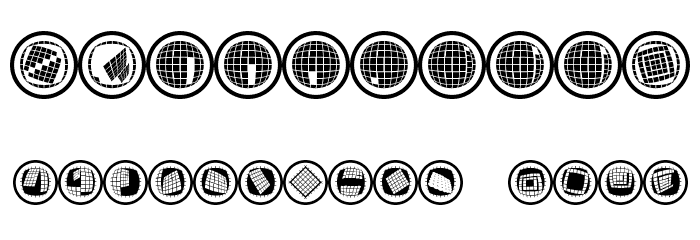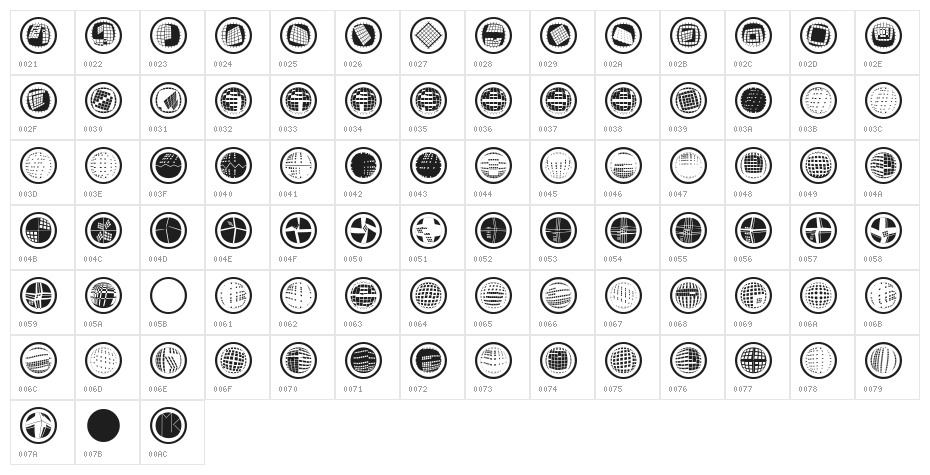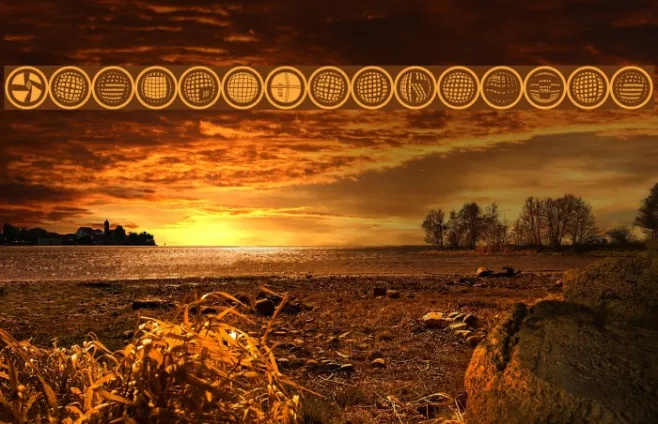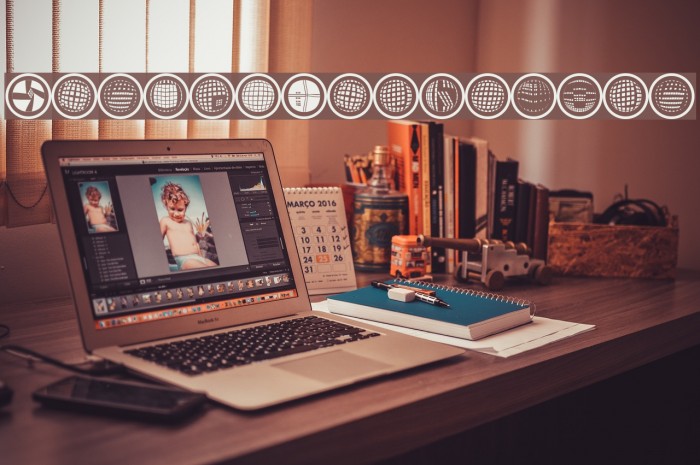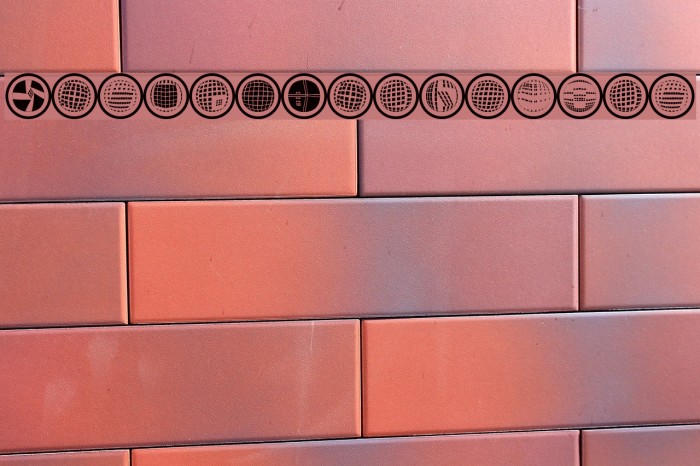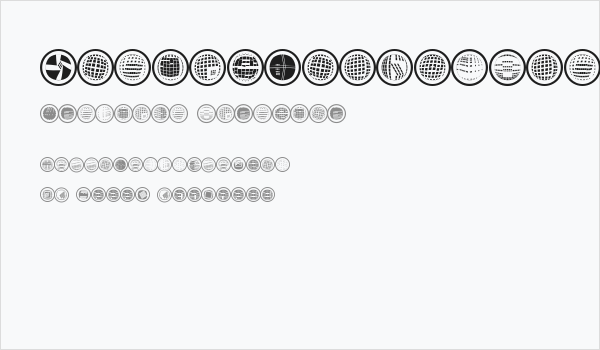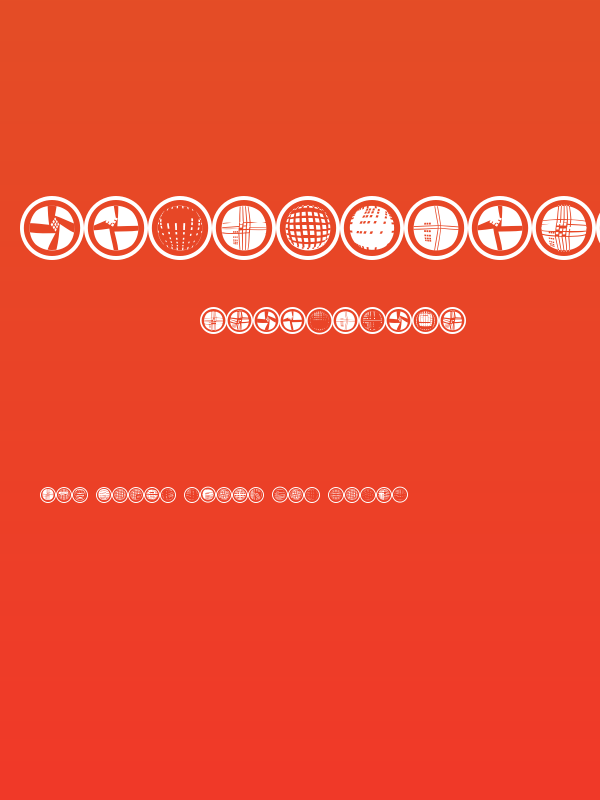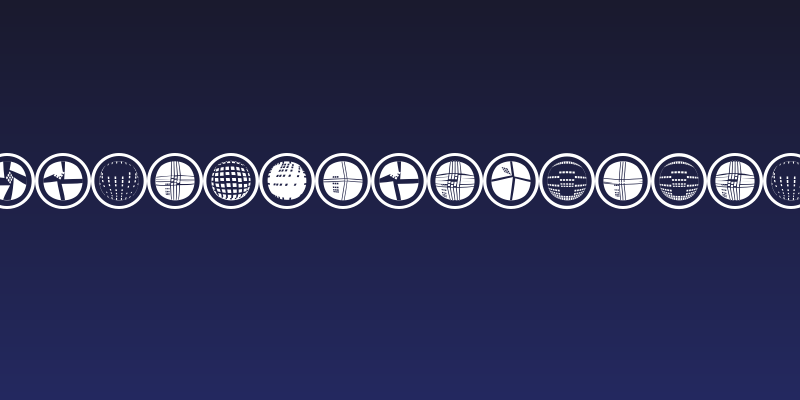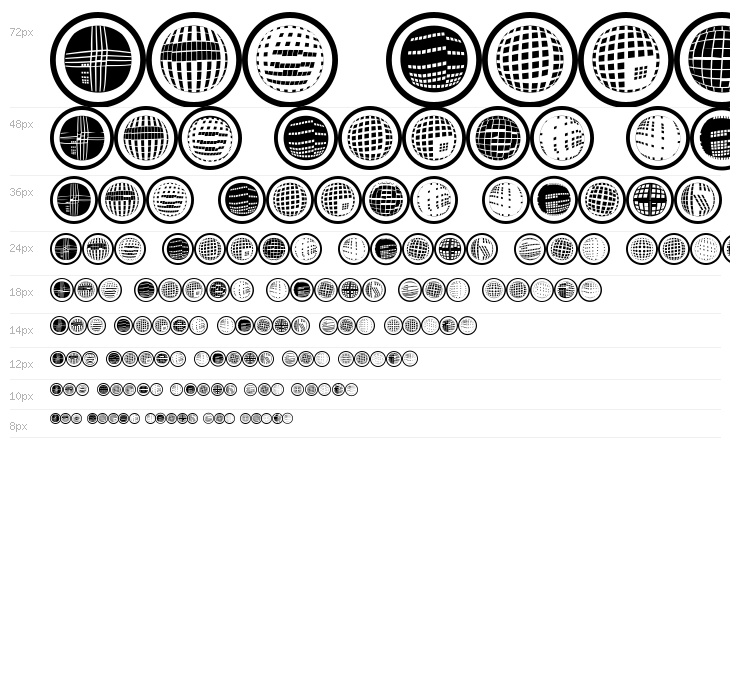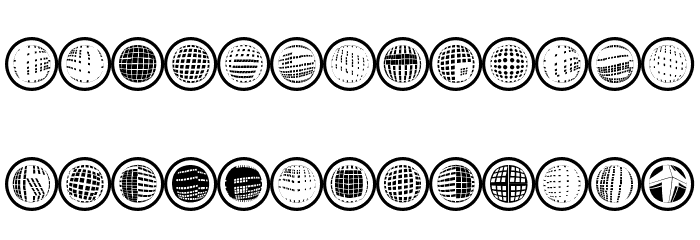
PoeticRoundsDue Font
PoeticRoundsDue Description
A highly decorative and abstract display typeface where each character is represented by a unique circular grid or geometric pattern, making letterforms nearly unrecognizable and prioritizing visual texture over legibility.
| Overall Style | Decorative, Abstract, Modern |
| Use Case | Logos, Art installations, Posters, Visual identity for creative industries |
| Proposed Projects | Experimental posters, album covers, digital art, branding for avant-garde projects, visual puzzles. |